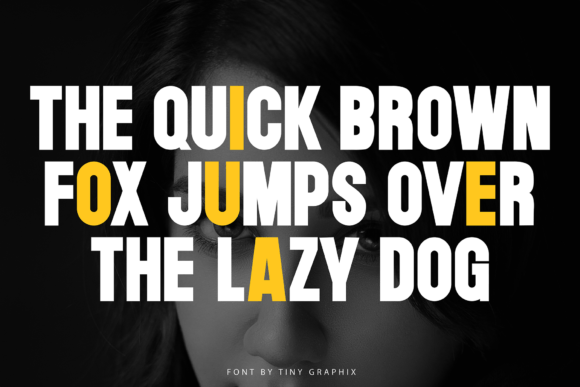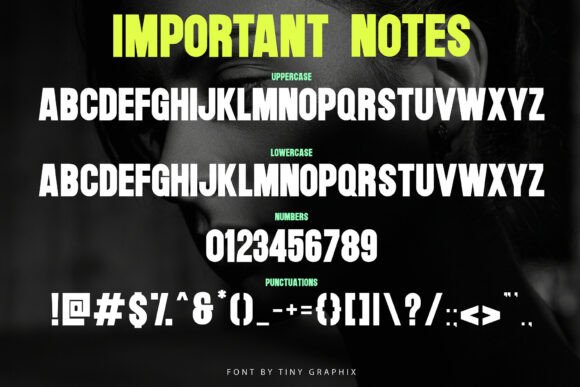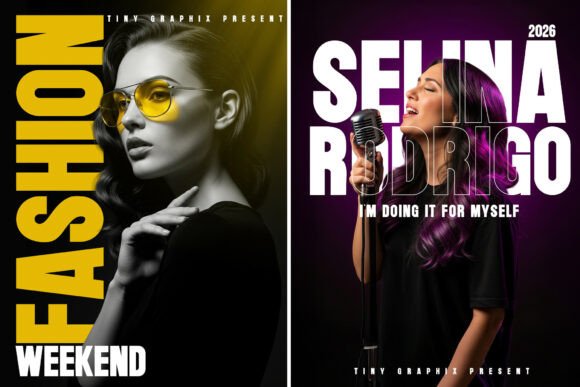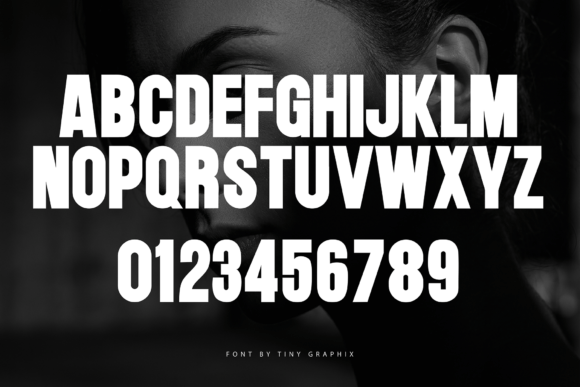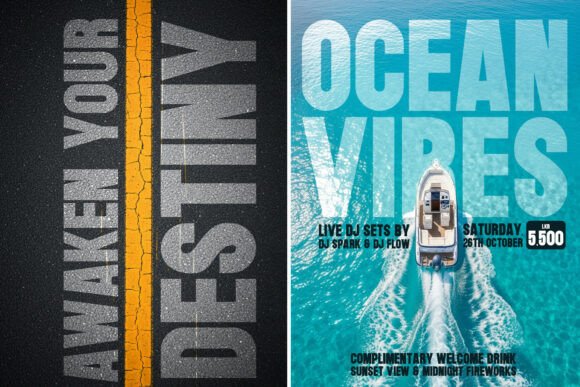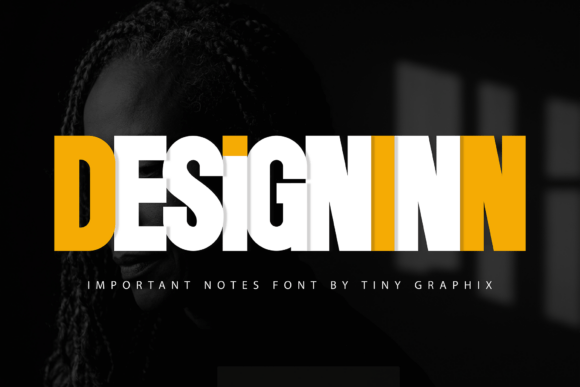
Introduction to Important Notes Font
⚡ Important Notes – Bold Modern Condensed Display Sans Make a bold statement with Important Notes, a high-impact, modern sans-serif display font.
Built for designers who need their text to command the room, Important Notes features an ultra-bold, condensed architecture Its clean lines and tight spacing create a sophisticated, industrial-chic look that is perfect for contemporary branding, high-end fashion, and cinematic layouts.
Key Features of Important Notes Font